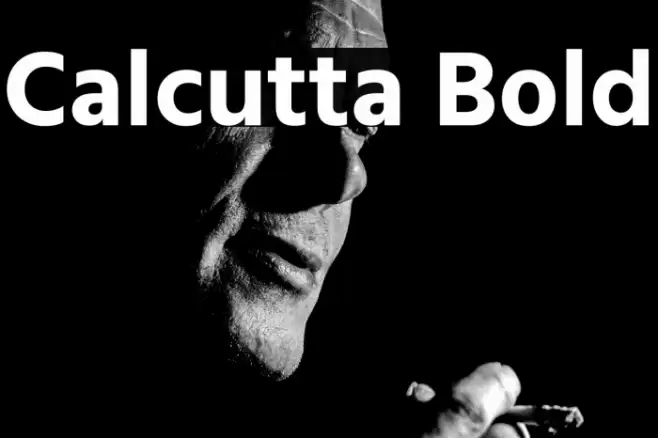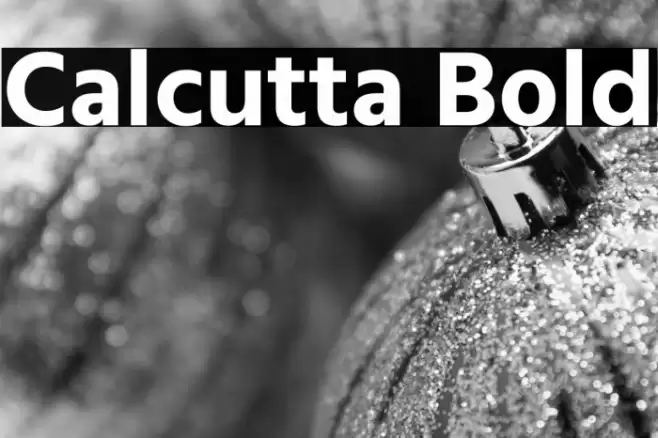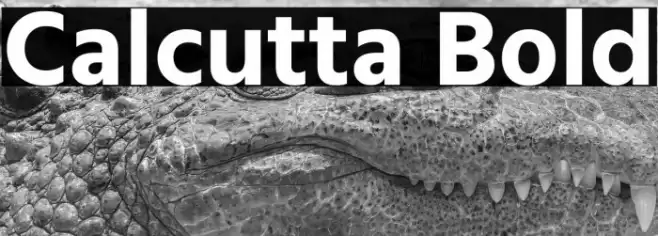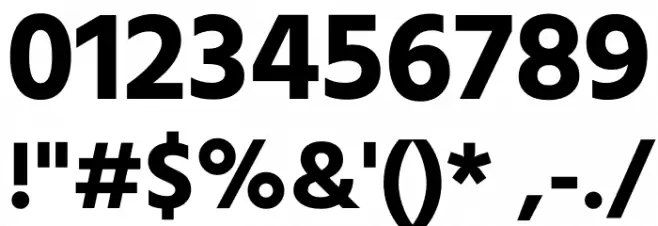
Calcutta Bold Font
Calcutta Bold Description
This font features a bold and robust design, characterized by its thick strokes and strong presence. The uppercase and lowercase letters maintain a consistent weight, providing a uniform appearance across all characters. The numerals are clear and easily distinguishable, making them suitable for various applications. Special characters are well-defined, ensuring readability and versatility. The overall design is modern and straightforward, making it ideal for impactful headlines and attention-grabbing text.
A bold, modern font with thick strokes and a strong presence from Sans Serif fonts.
- Proposed Projects: Ideal for branding, advertising, headlines, and signage where a strong, bold statement is needed.
- Use Case: Headlines, Logos, Advertising